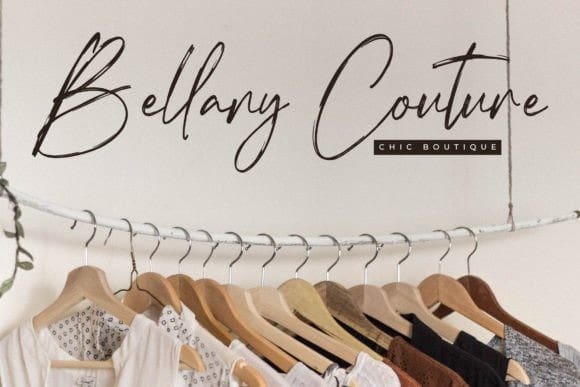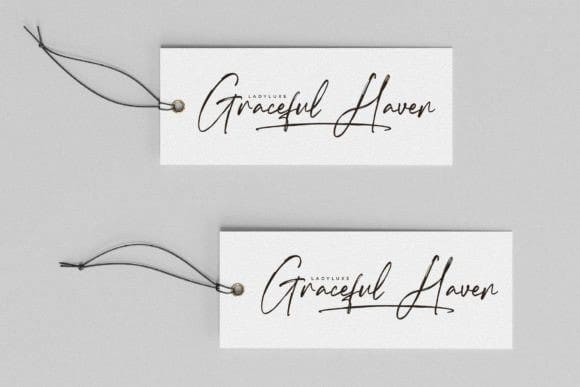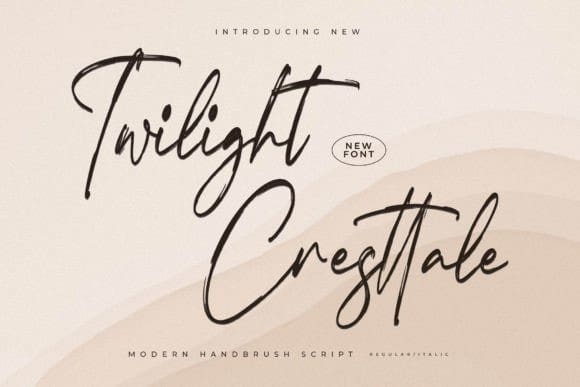
Twilight Cresttale Font
Twilight Cresttale Font is a magical script font carefully created with a touch of elegance. Whether you’re looking for fonts for Instagram or calligraphy scripts for DIY projects, this font will turn any creative idea into a true piece of art!